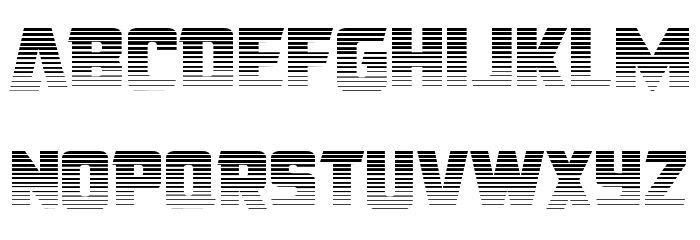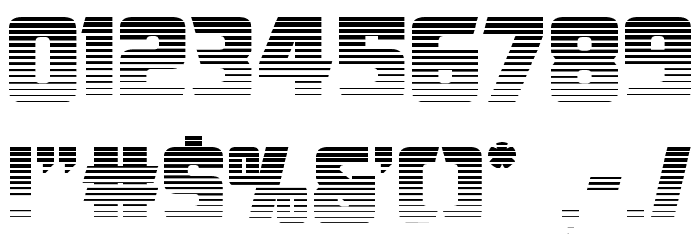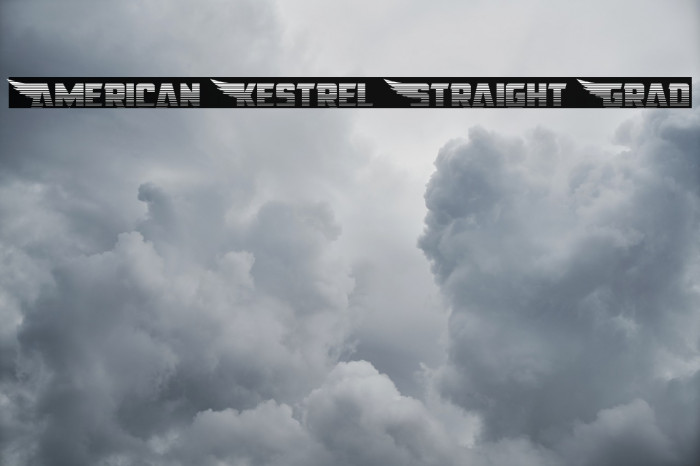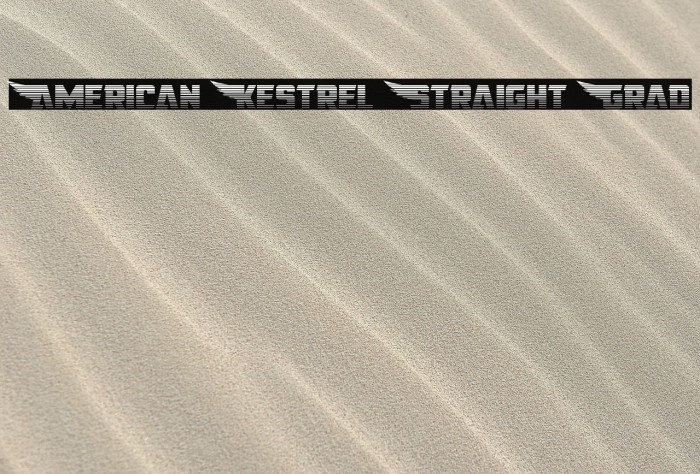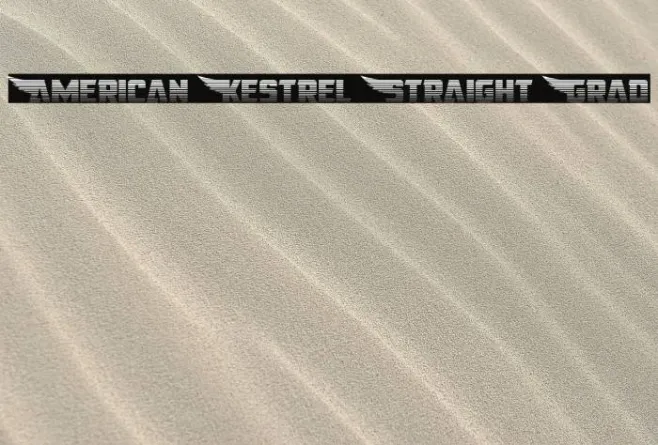
American Kestrel Straight Grad Font
This font features a bold, futuristic design with a distinctive horizontal line pattern running through each character. The uppercase letters are blocky and geometric, giving a sense of strength and modernity. The numerals and special characters follow the same design principles, ensuring consistency across all elements. The horizontal lines create a dynamic visual effect, making the font stand out in any design. This style is particularly eye-catching and suitable for projects that require a modern and edgy look.
A bold, futuristic font with a unique horizontal line pattern.
- Proposed Projects: Ideal for technology branding, sci-fi posters, video game titles, and modern advertising campaigns.